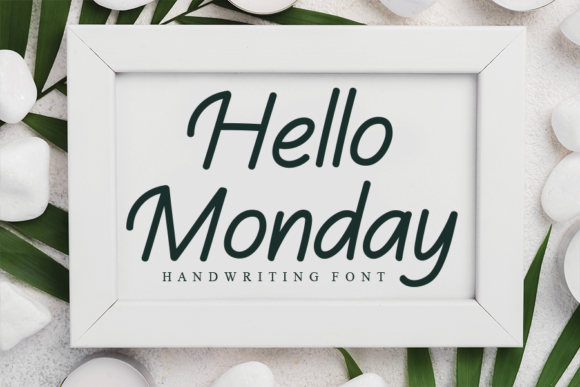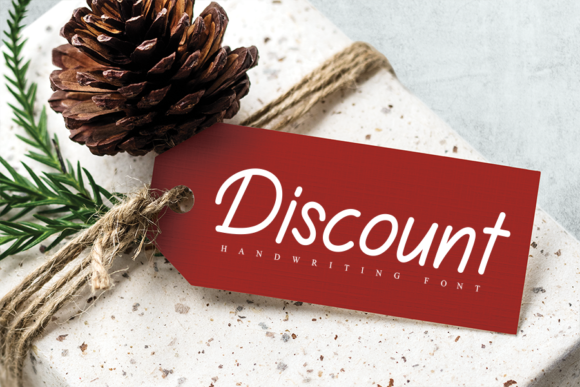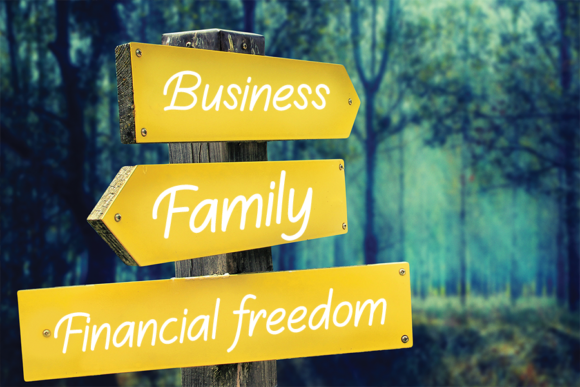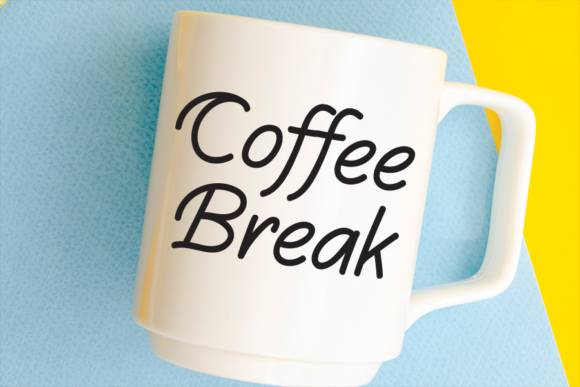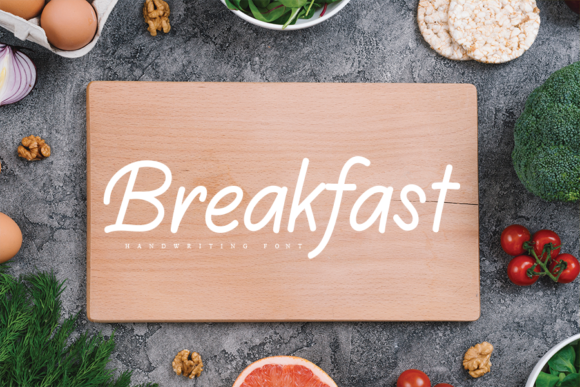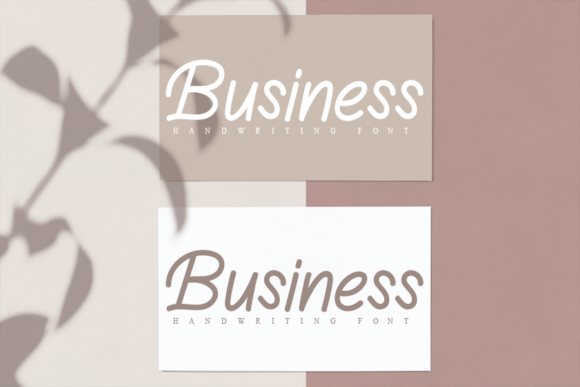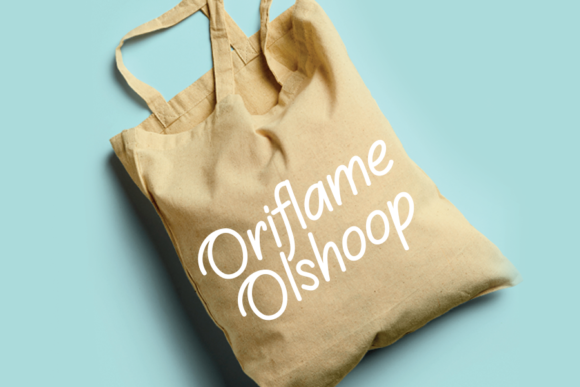
Welcome Farmhouse Font
About Welcome Farmhouse Font
Introducing “Welcome Farmhouse,” a stylish and unique script font that will make your designs stand out. With its eye-catching and distinctive look, this font is perfect for various design projects, adding a creative touch that captivates the viewer.
The stylish nature of “Welcome Farmhouse” makes it a great choice for a wide range of applications. Whether you’re designing posters, thank you cards, quotes, greeting cards, logos, business cards, or any other creative project, this font will bring a fresh and captivating aesthetic to your designs.
When it comes to posters, “Welcome Farmhouse” shines with its unique and stylish script. The font’s decorative strokes and elegant curves create a visually striking composition, making your poster design truly captivating. Whether you’re promoting an event, showcasing artwork, or sharing a message, “Welcome Farmhouse” will help your poster stand out from the crowd.
Incorporating “Welcome Farmhouse” into thank you cards adds a touch of creativity and uniqueness to your expressions of gratitude. The font’s stylish and distinctive letters bring an element of charm and personality to your cards, making them memorable and appreciated by the recipient.
For quotes and greeting cards, “Welcome Farmhouse” adds a creative touch to your words. The font’s unique script enhances the visual impact of your quotes and greetings, making them more engaging and visually appealing. Whether you’re creating social media graphics, prints, or personalized cards, “Welcome Farmhouse” will make your messages stand out.
When it comes to logos and business cards, “Welcome Farmhouse” offers a stylish and memorable identity. The font’s unique script adds a touch of creativity and professionalism to your brand, helping it to leave a lasting impression. Whether you’re working on a boutique, a creative agency, or any other business that values a distinctive and stylish aesthetic, “Welcome Farmhouse” is an excellent choice.
In summary, “Welcome Farmhouse” is a stylish and unique script font that adds a creative touch to your designs. With its captivating and distinctive look, this font is ideal for posters, thank you cards, quotes, greeting cards, logos, business cards, and more. Let “Welcome Farmhouse” elevate your designs and make them stand out with its stylish and creative aesthetic.